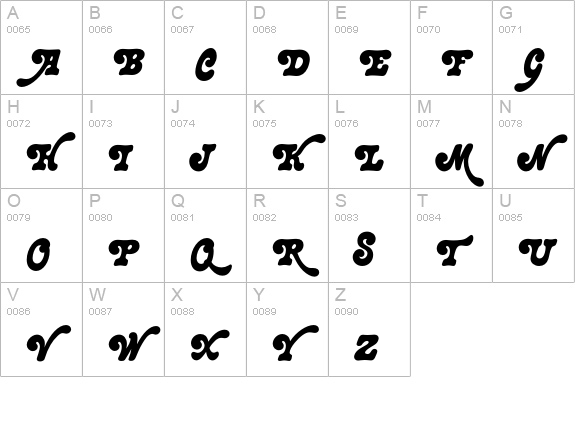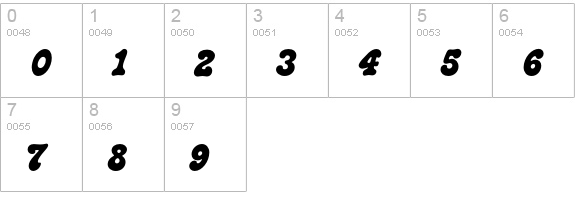
LazybonesEF Font Details
LazybonesEF font is a stunning display typeface that perfectly captures the essence of laziness with its laid-back and relaxed letterforms. Its unique and quirky design is sure to make any text stand out and evoke a sense of casualness. This font features beautifully rounded edges, adding a touch of softness to each character. The letters are slightly slanted, giving them a playful and carefree appearance. LazybonesEF font is ideal for a wide range of creative projects, such as branding, advertising, posters, and social media graphics. One of the best things about LazybonesEF font is that it is completely free to download. You can easily get your hands on this fantastic font by visiting FontsMarket.com. Whether you're a professional designer or just someone who loves experimenting with typography, LazybonesEF font will undoubtedly become a valuable addition to your font library. With its free availability, LazybonesEF font allows you to unleash your creativity without any limitations. It gives you the freedom to explore different design possibilities and create unique and eye-catching visuals. So, why wait? Head over to FontsMarket.com and download LazybonesEF font today. Let your designs embody the spirit of laziness and embrace the beauty of this one-of-a-kind typeface.